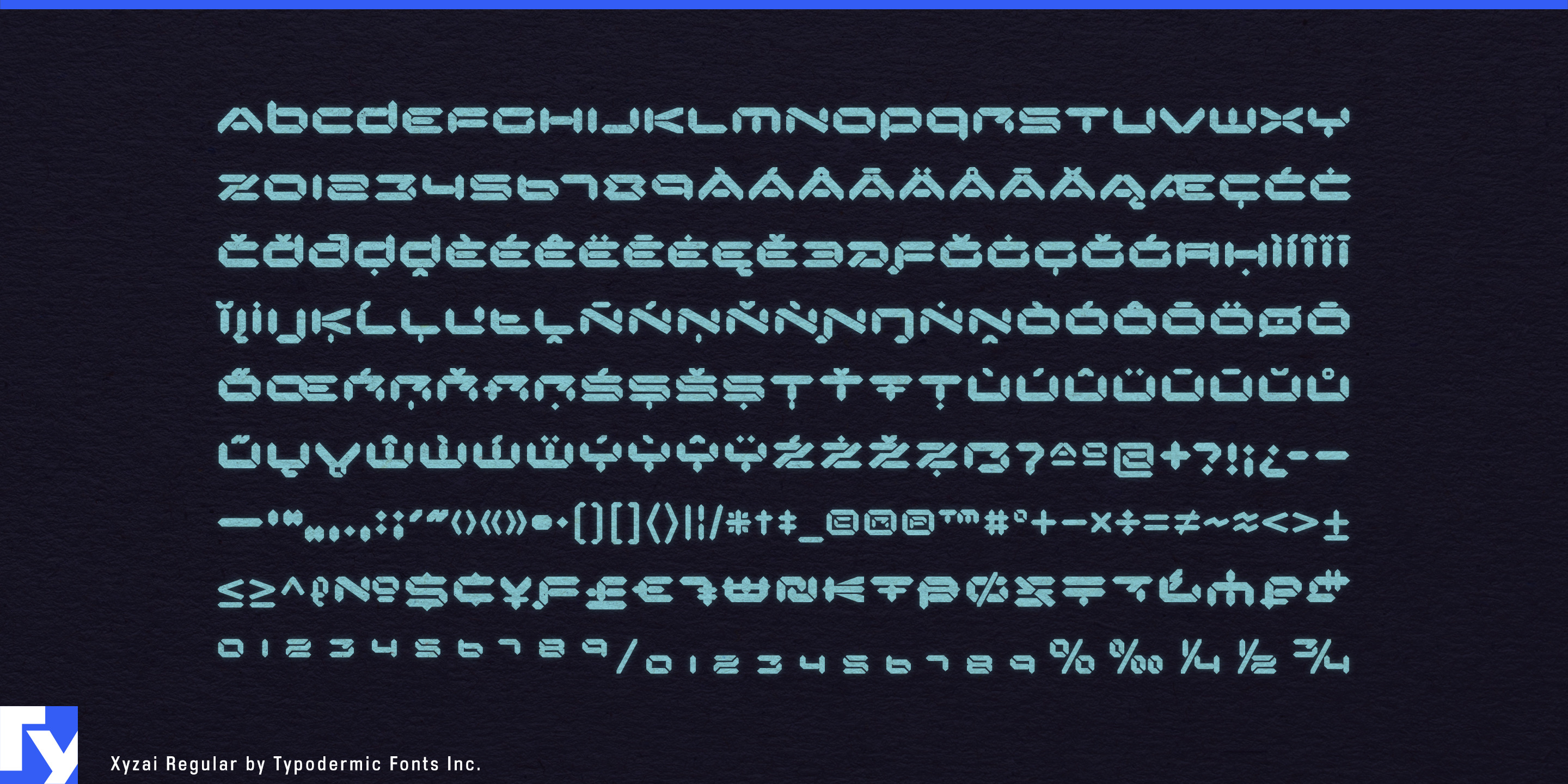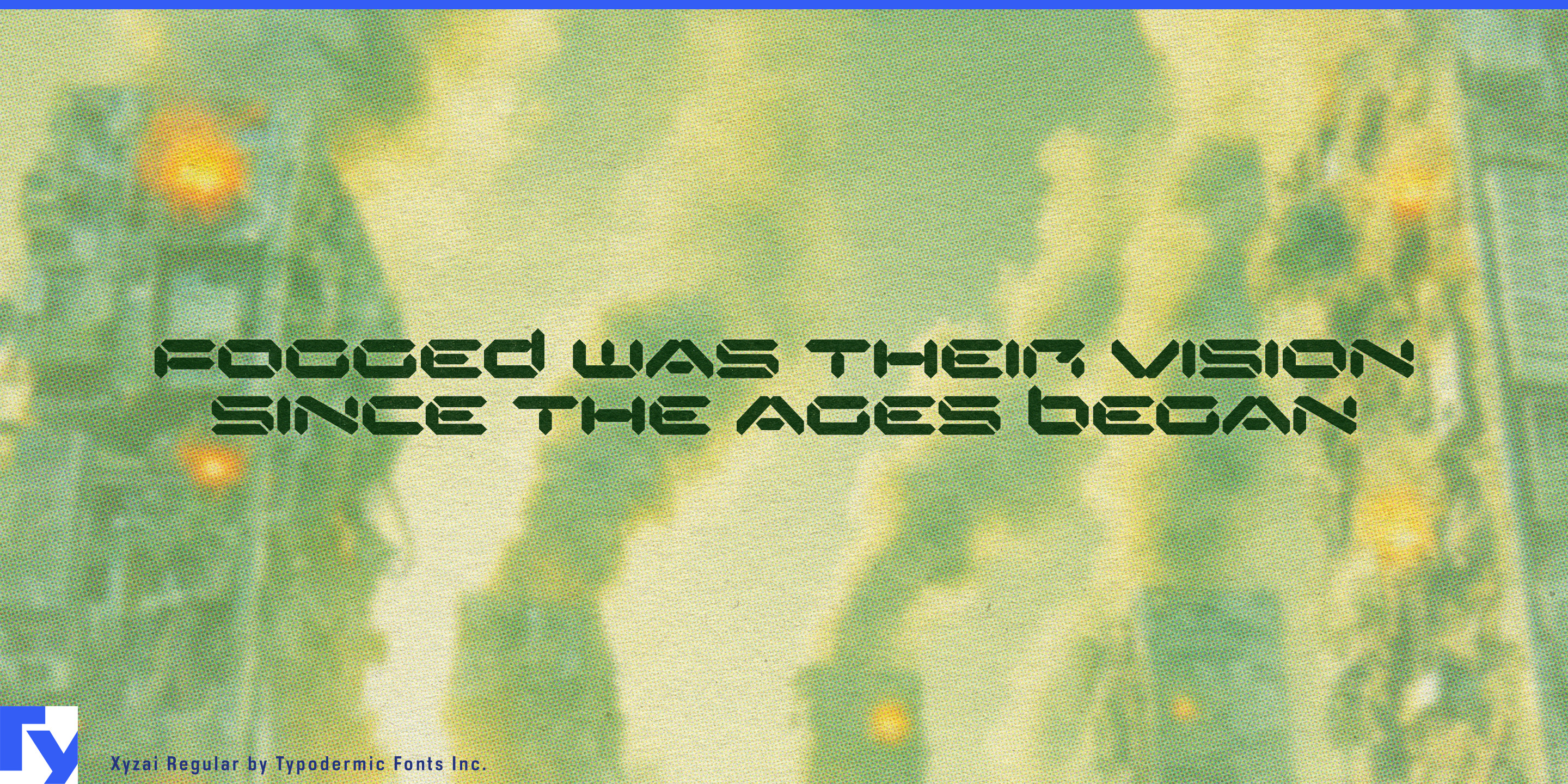
Xyzai
Xyzai is a study in structural recursion—a segmented display alphabet reimagined as an architectural system. Its wide proportions and modular forms draw on the language of LCD and LED matrices, but the references are abstracted, expanded, and looped back into themselves until the source feels both familiar and alien. This is not a font that hides its construction; every stroke is a visible component in a larger grid logic.
The design invites deliberate tension between form and function. At a glance, Xyzai is legible enough to communicate; on closer inspection, its proportion shifts and segment breaks create a rhythm that slows reading, making the viewer aware of the act itself. That friction is intentional—it signals that the message is meant to be examined, not skimmed. Rooted in late-20th-century display technology yet recontextualized for a hypermodern design landscape, Xyzai is as much about visual systems as it is about letterforms. It thrives in projects where typography becomes part of the architecture: identity systems, interface graphics, spatial installations, or editorial spreads that blur the boundary between text and image.
With broad Latin language support and a structural integrity that holds from large-scale signage to dense UI elements, Xyzai offers more than nostalgia—it offers a framework. Use it when you want the typography itself to be the infrastructure of the design.